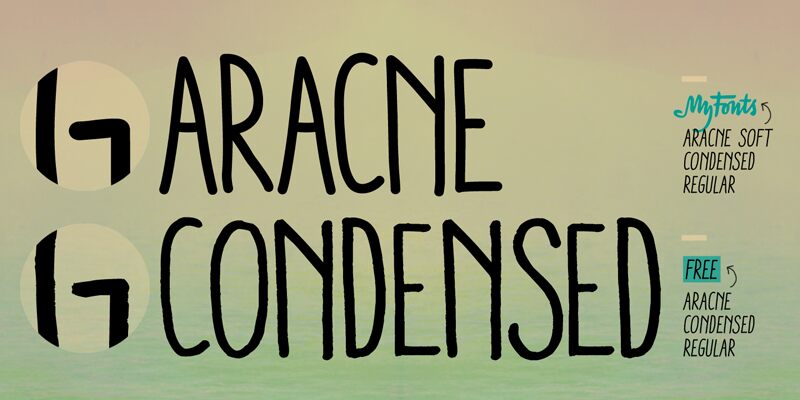
Aracne Condensed Italic by Julia Martinez Diana is a free condensed handwritten font with tall, wiry letters. Stroke widths shift, and the narrow forms bend slightly from character to character. Its uneven contours keep it lively.
Posters are its strongest setting, particularly for independent music and arts events. The stretched forms also suit album covers and magazine features with an intimate, drawn-by-hand voice. In packaging, the lettering can become a hand-painted sign rather than neutral text.
Aracne
Julia Martinez Diana